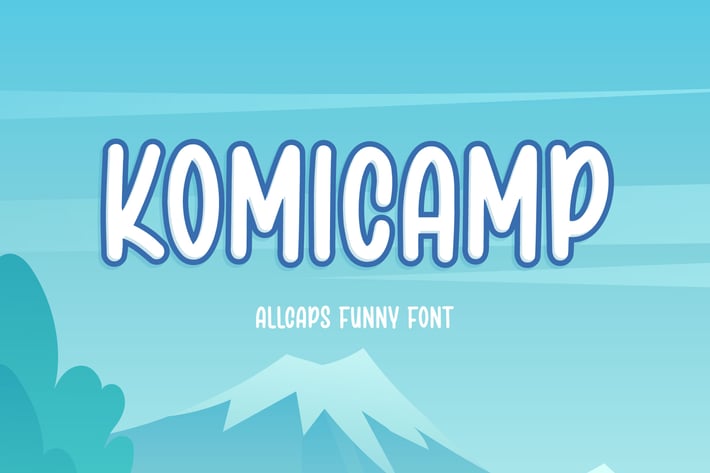
Komicamp - Sans serif comic font
Hello! KOMICAMP is a comic display font with fun and playful style. This font brings a happiness in the each word.
Childrens can be used in any works such as comic book, school, kindergarten, story book, kids’ stuff brand, children book, poster, advertisement, social media content, logo and many more.